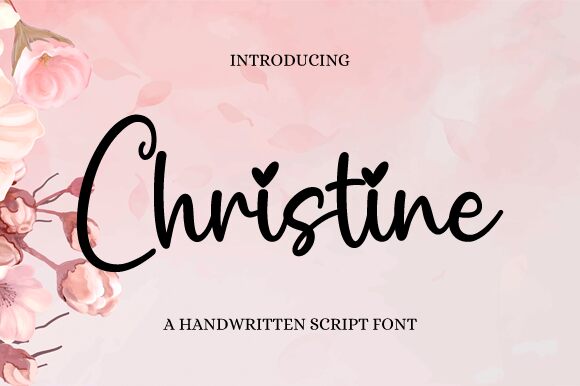
Christine, a creation by Nirmala Creative, embodies the charm and elegance of handwritten script with its semi-light weight that offers a delicate touch. This font's fluidity and grace are reminiscent of personal correspondence and bespoke stationery, making it an excellent choice for invitations, branding, and editorial design. The subtle variation in stroke width and the gentle curves give Christine an authentic handcrafted feel that stands out in digital formats. Its legibility, coupled with a personal flair, ensures versatility across various creative endeavors while maintaining an intimate connection with the audience.
Whether you're designing heartfelt greeting cards or looking to add a personal touch to your marketing materials, Christine is poised to elevate your project with its stylishly approachable aesthetic.